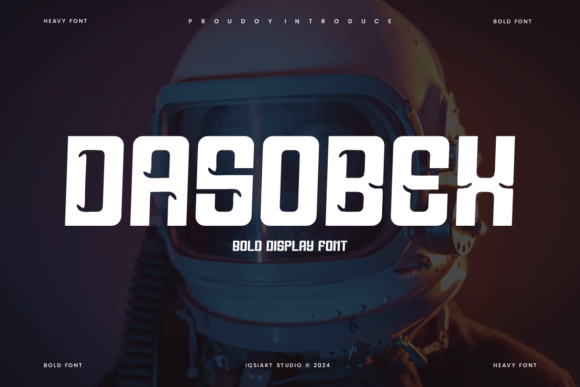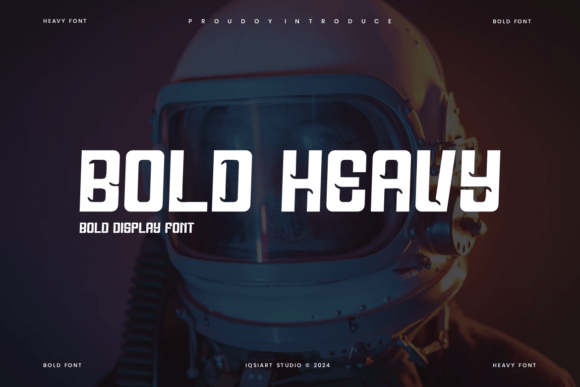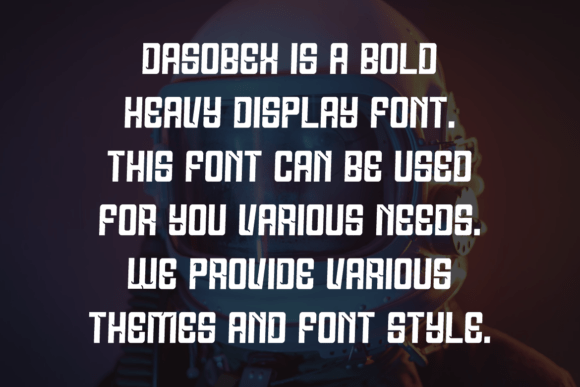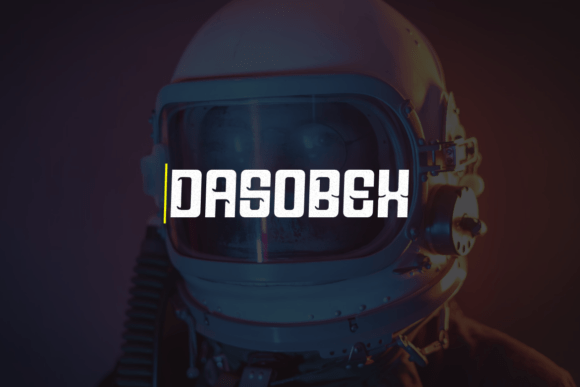
Dasobex Font: A Bold, Futuristic Display Font for Tech Branding
About the Dasobex Font
Discover the charm of Dasobex Font. This font is a perfect blend of modern aesthetics and classic appeal. Dasobex is a modern and futuristic display font with bold, heavy strokes and unique cutout details. Its sleek and strong appearance makes it ideal for sci-fi themes, tech branding, esports logos, space-related projects, and futuristic headlines. Stand out with this powerful, high-impact font!
Dasobex excels in large-scale applications such as headlines, logos, and posters where its bold forms command attention. It’s also well-suited for short, impactful statements on packaging or in branding materials for tech companies or gaming brands. However, its weight and unique cutouts make it less suitable for body text or UI elements requiring high readability. Avoid using it for long paragraphs or in small sizes.
For a balanced aesthetic, pair Dasobex with a clean sans-serif like Open Sans for body copy or a more geometric sans-serif such as Roboto for a modern, consistent feel. Alternatively, a subtle serif like Merriweather can offer a sophisticated contrast, grounding the boldness of Dasobex while maintaining visual interest.
Its core personality is powerful and modern, conveying a sense of futuristic energy and technological advancement. Brands seeking to project strength, innovation, or a cutting-edge image will find Dasobex a highly effective choice.
Dasobex Font Usage Examples
Dasobex Font Example